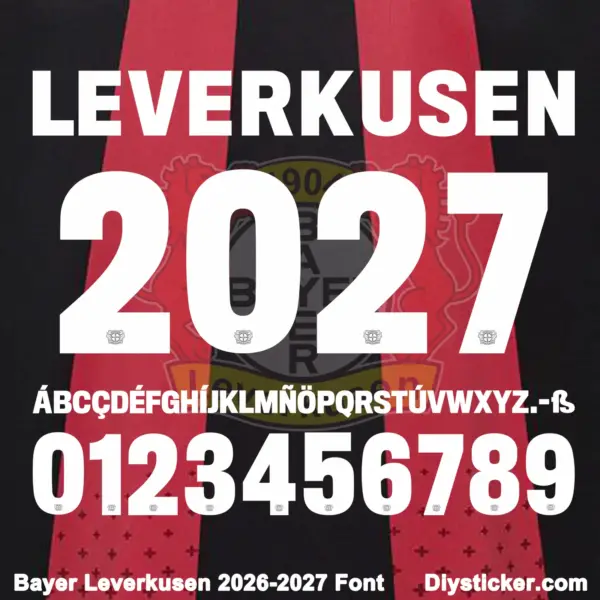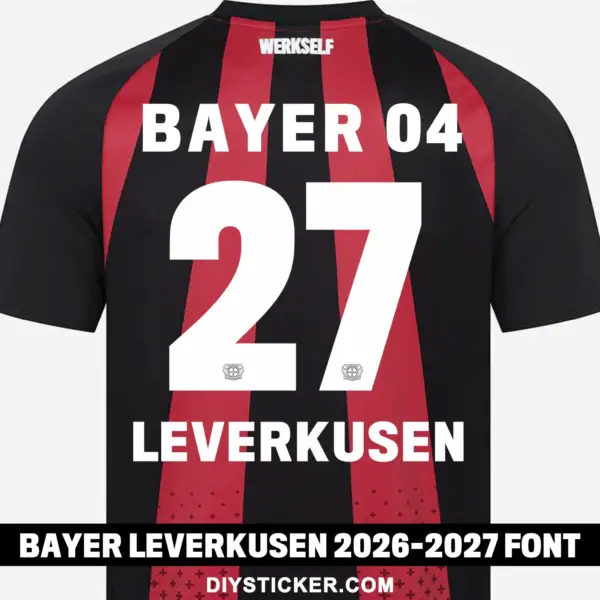
Recreate the bold, dominant style of Die Werkself with this official kit typography set! If you need a high-precision Bayer Leverkusen font download for apparel customization, this complete Bayer Leverkusen 2026-2027 Font and Numbers digital bundle comes rendered in solid crisp white. Featuring heavy condensed sans-serif lettering, solid block-style numeric geometry with soft top-left corner rounding, and the official Bayer 04 Leverkusen club crest positioned at the base of each digit, it is the ultimate custom jersey printing font Bayer Leverkusen option for garment decorators.
Complete uppercase alphabet, Leverkusen jersey numbers vector, and specific diacritic accents (including
ß).
Elevate Your Kit Customization with the Bayer Leverkusen 2026-2027 Font
Upgrade your custom sports apparel catalog with the official match-day kit typography for Bayer 04 Leverkusen! This digital asset pack provides a complete Bayer Leverkusen 2026-2027 font download tailored for German Bundesliga and European Champions League campaigns. Featuring prominent, high-impact block lettering and solid white squad numbers with curved upper-left edges, this layout creates maximum visibility and dynamic contrast against red and black vertical striped kit designs.
Comprehensive Character Mapping
Your instant digital download includes a complete alphanumeric asset set configured to exact kit specifications:
A-Z Uppercase Alphabet: Heavy, condensed sans-serif letterforms built for bold clarity across high-back player nameplates and regional club headers (
BAYER 04,LEVERKUSEN). -
0-9 Custom Squad Numbers: Solid white numeric glyphs styled with soft top-left inner radii and the official Bayer 04 crest embedded at the bottom (supplied as Leverkusen jersey numbers vector).
Special Accents & Diacritics: Complete set of punctuation marks and German/international accents (
Á,Ç,É,Í,Ñ,Ö,Ú,ß, etc.) to accurately produce authentic player transfers using this custom jersey printing font Bayer Leverkusen package.